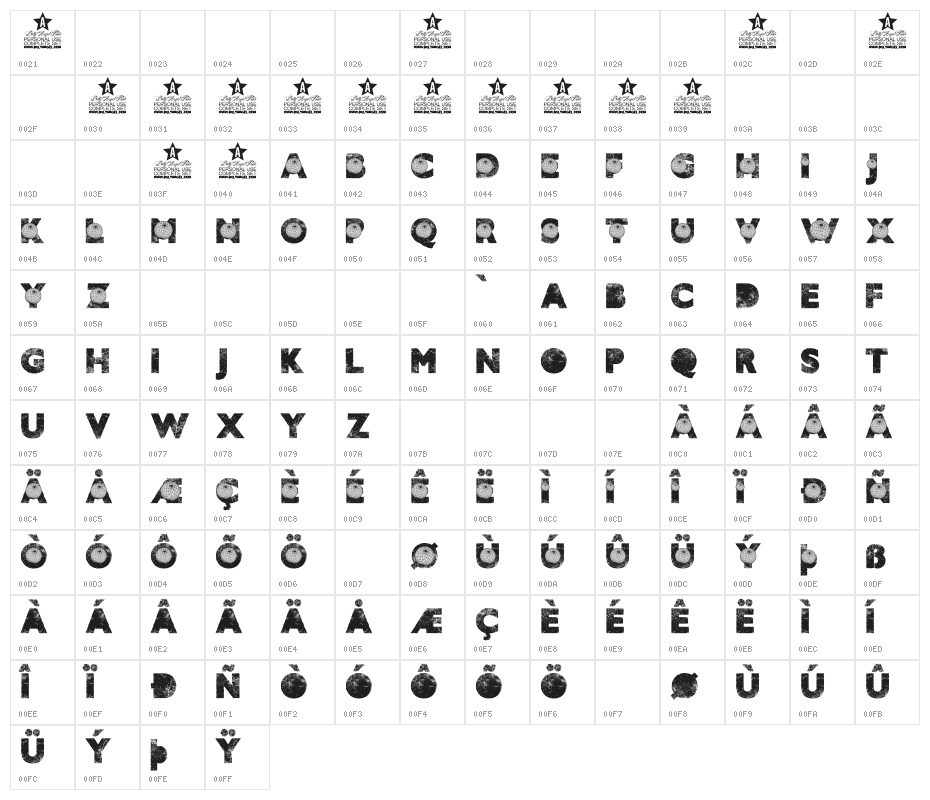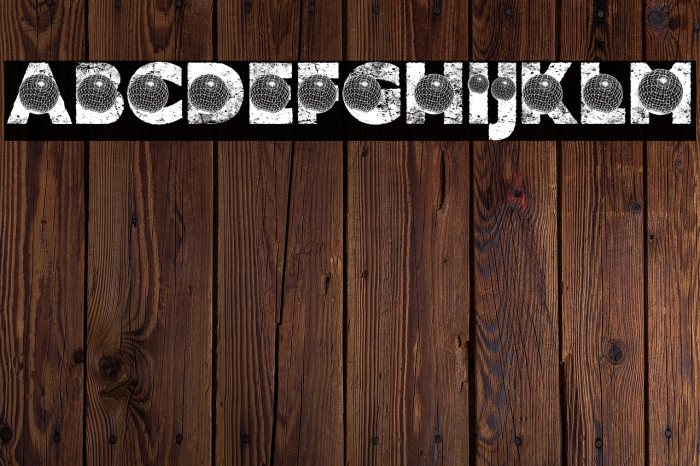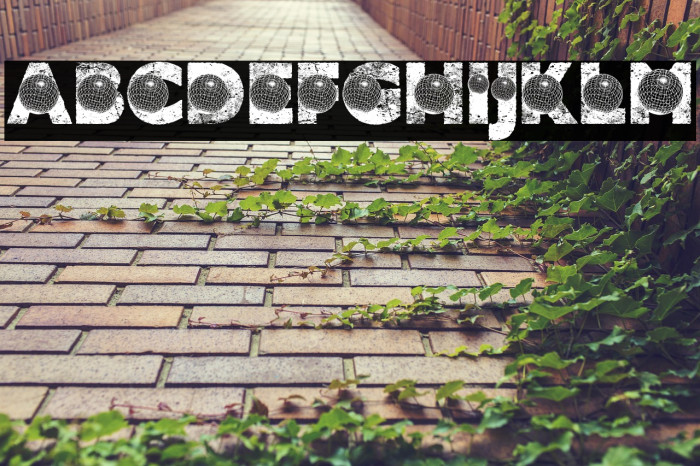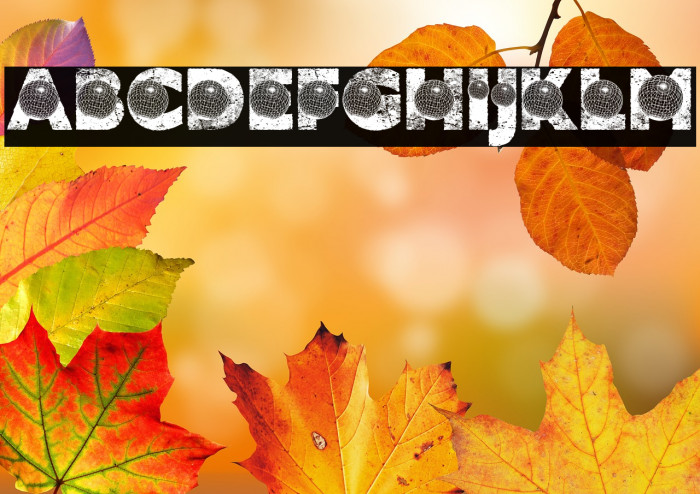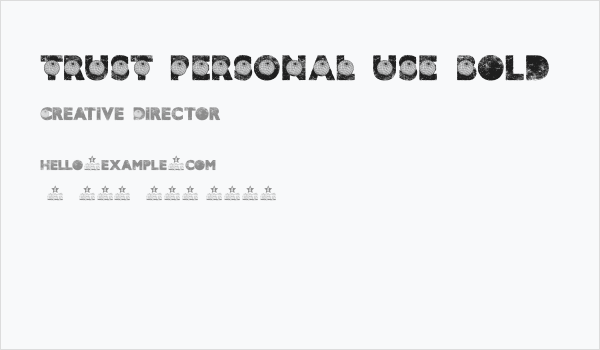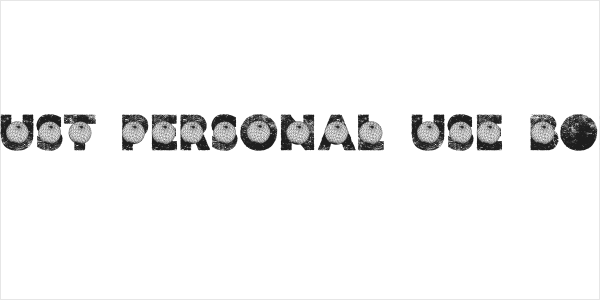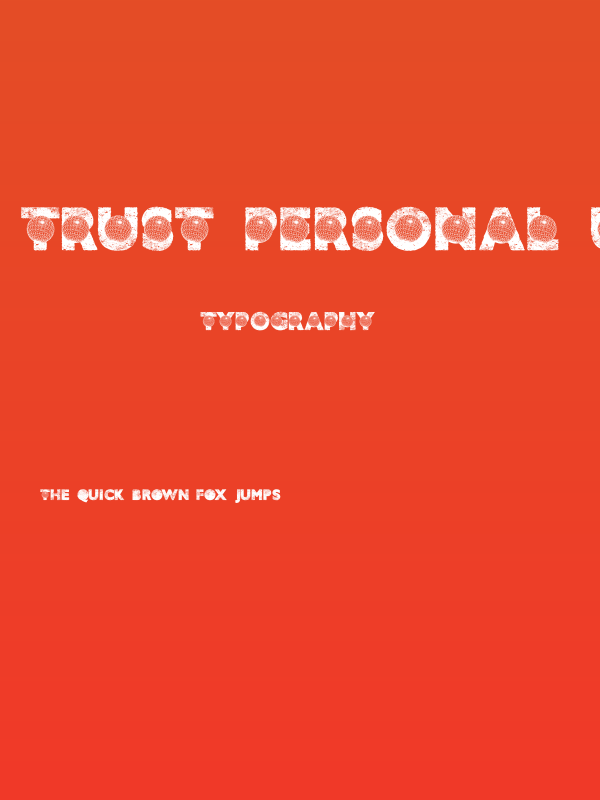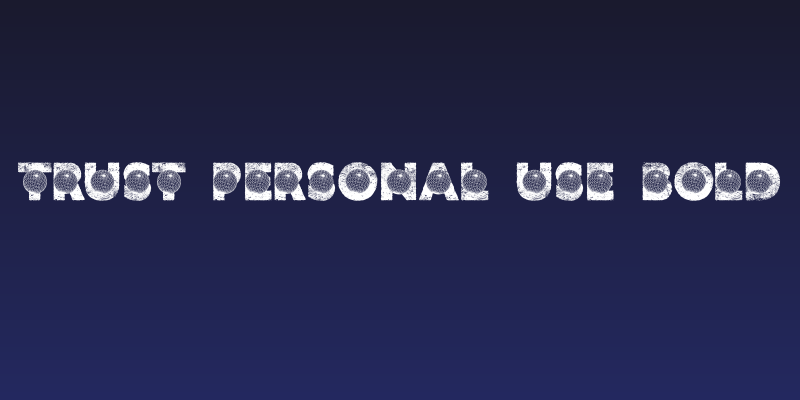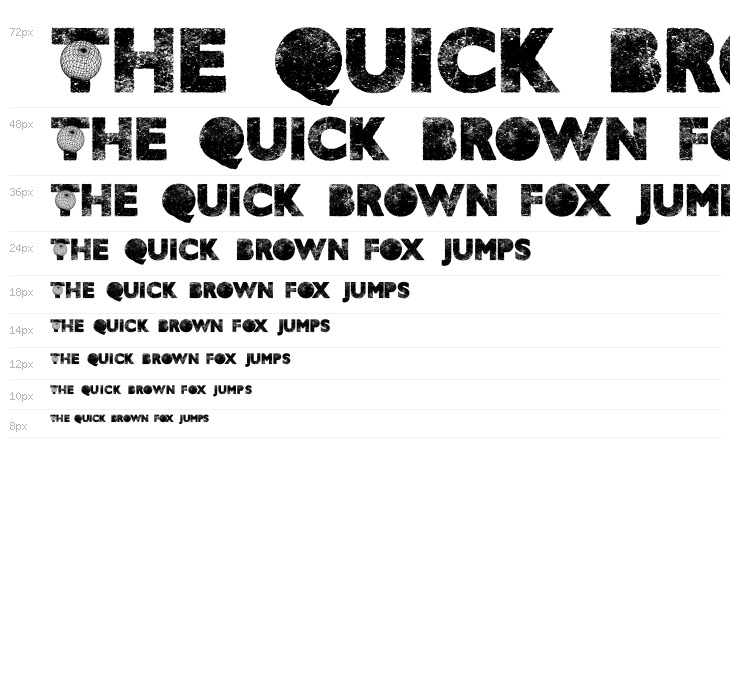
TRUST PERSONAL USE Bold Font
TRUST PERSONAL USE Bold Description
This font features a bold, distressed style with a textured appearance that gives it a rugged, vintage feel. The uppercase letters are prominent and impactful, making it suitable for designs that require a strong visual presence. The texture within each character adds a layer of depth and interest, reminiscent of worn-out or grunge aesthetics. The font maintains a consistent weight throughout, ensuring readability despite its decorative elements. It is ideal for projects that aim to convey a sense of nostalgia or edginess.
| Proposed Projects | Ideal for posters, album covers, branding for vintage-themed products, and any design requiring a bold, textured look. |